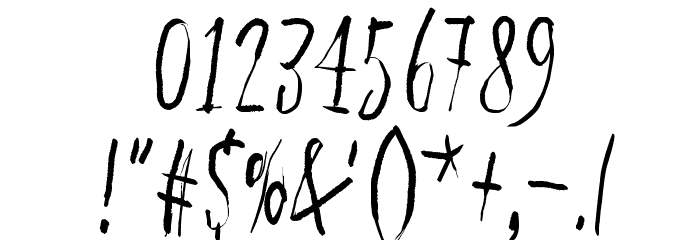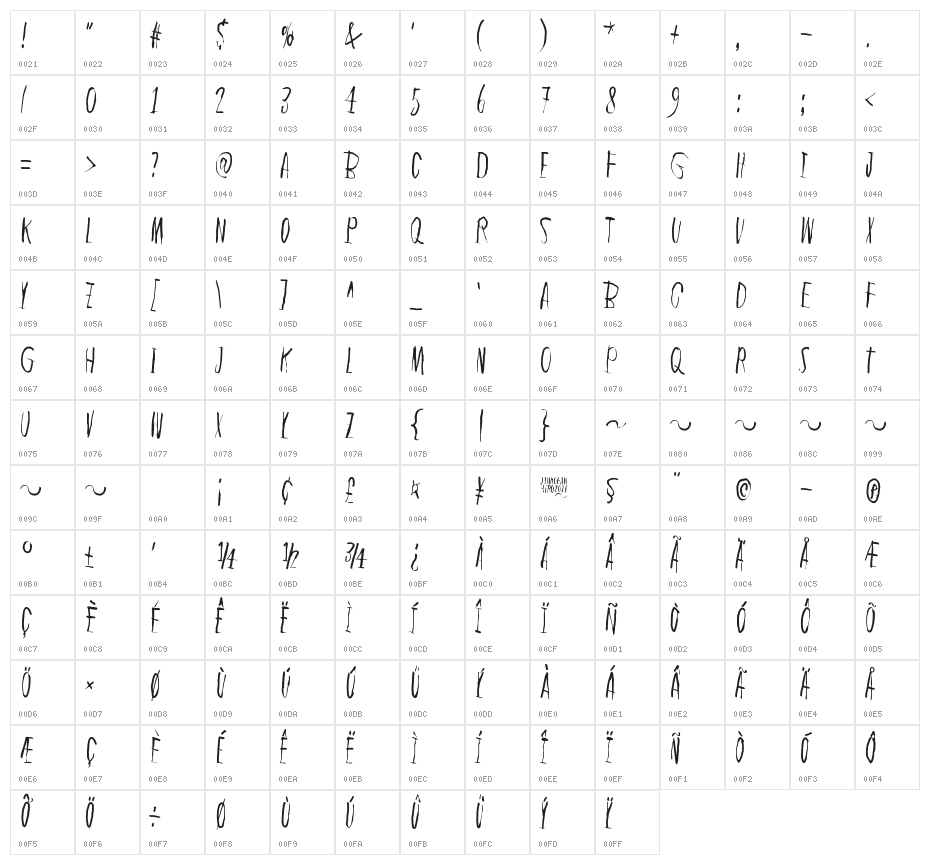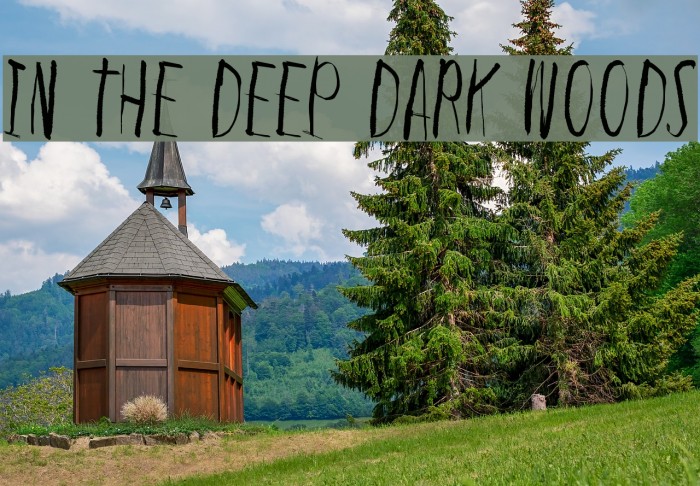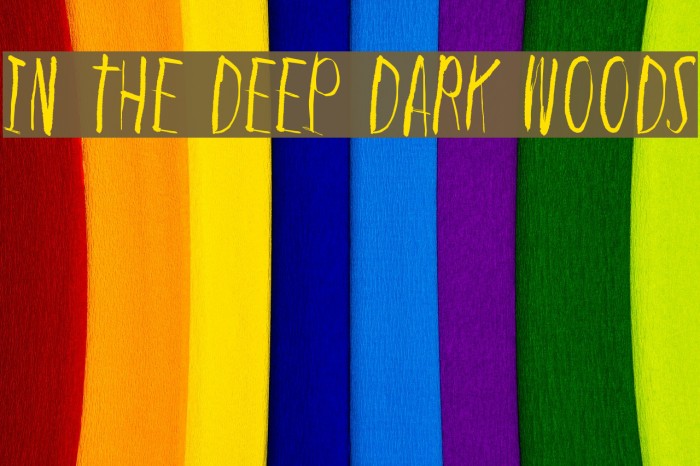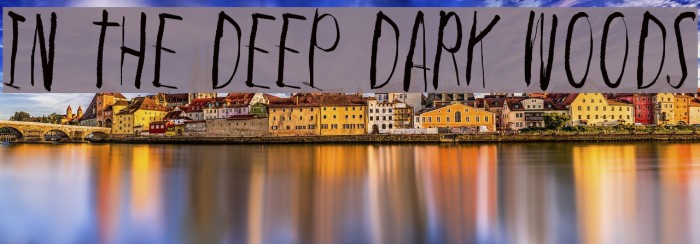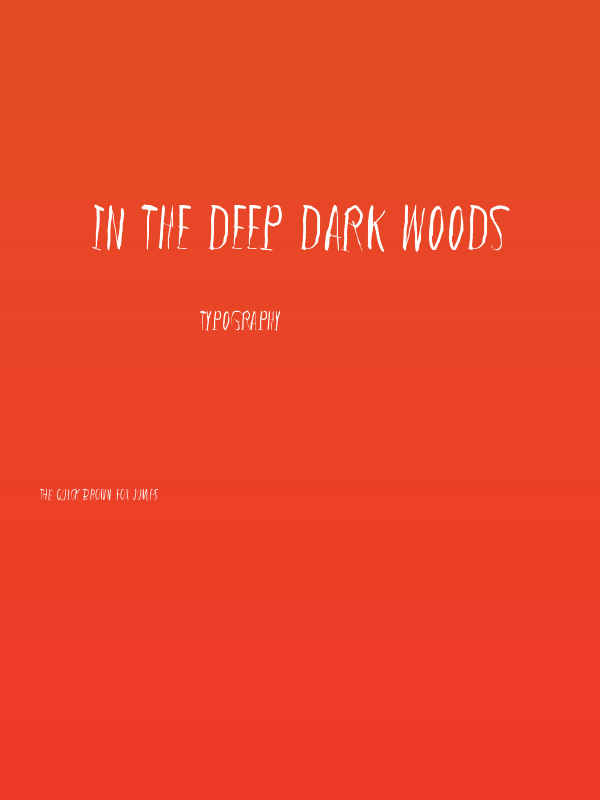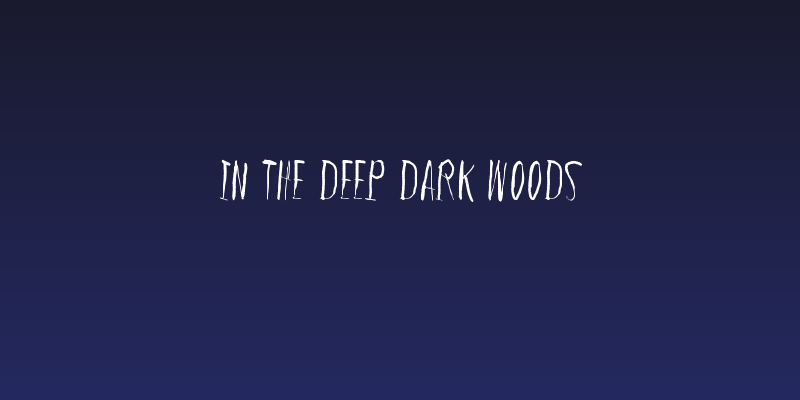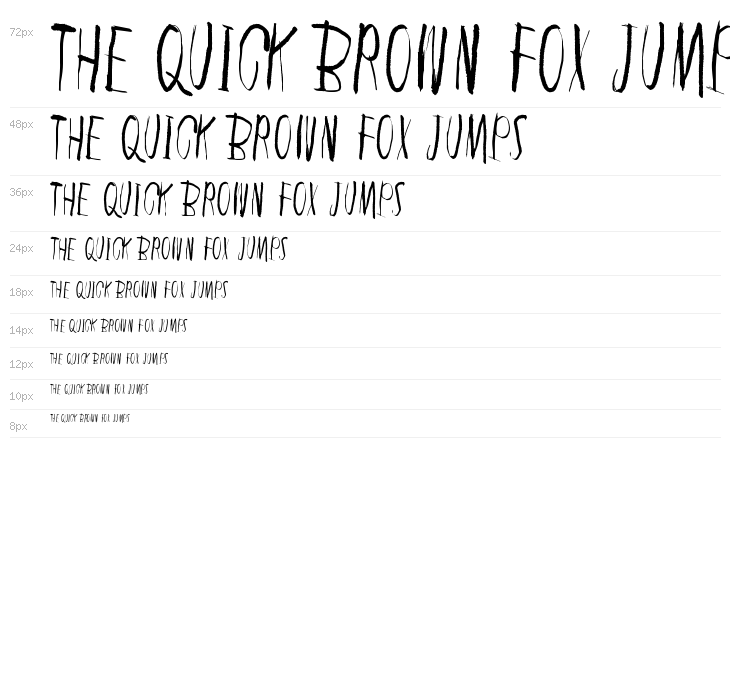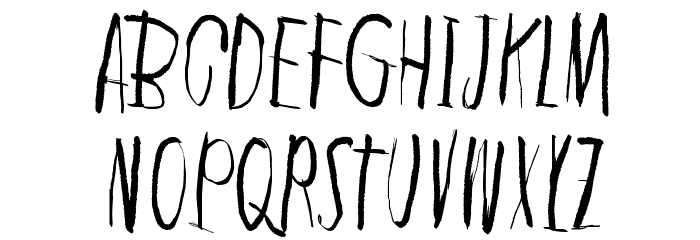
In the deep dark woods Font
In the deep dark woods Description
This font exudes a raw, hand-drawn aesthetic with its irregular, elongated strokes and slightly uneven baseline, giving it a distinctly organic and expressive feel. The characters are tall and narrow, with a playful yet edgy appearance, reminiscent of brush strokes or ink sketches. The uppercase and lowercase letters maintain a consistent style, while the numbers and special characters integrate seamlessly, adding to the font's cohesive look. This font's unique style makes it stand out, ideal for projects that require a touch of personality and creativity.
| Use Case | Headlines, Logos, Artistic designs |
| Proposed Projects | Perfect for creative projects such as posters, album covers, book titles, or any design needing a personal, artistic touch. |